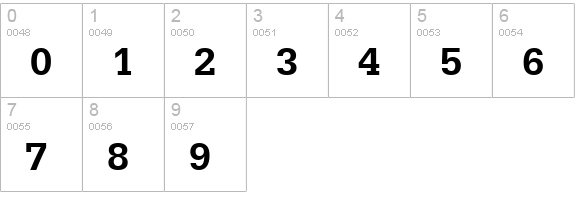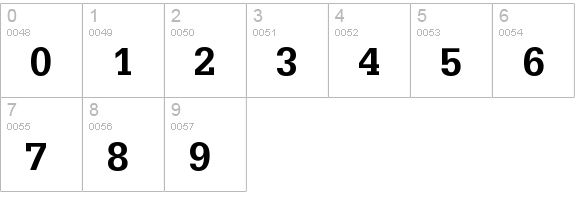
URWEgyptienneTMed Font Details
URWEgyptienneTMed is a stunning font that effortlessly combines classic elegance with a modern twist. This typeface exudes a sense of timeless sophistication, making it the perfect choice for projects that require a touch of refined beauty. With its clean lines and balanced proportions, URWEgyptienneTMed captures attention and adds a touch of professionalism to any design. Whether you're creating a logo, designing a website, or crafting a stylish invitation, this font will elevate your work to new heights. Not only does URWEgyptienneTMed offer exceptional aesthetic appeal, but it also provides incredible versatility. Its wide range of weights and styles allows you to experiment and find the perfect fit for each project. From bold and eye-catching headings to subtle and elegant body text, this font has it all. But perhaps the most impressive aspect of URWEgyptienneTMed is that it is free. Yes, you read that right. This exceptional font is freely available to download at FontsMarket.com. Now you can enjoy this premium quality font without breaking the bank. So why wait? Take advantage of this incredible opportunity and download URWEgyptienneTMed today. Discover the beauty and versatility it offers, and let your creativity soar to new heights. Whether you're a professional designer or a passionate hobbyist, this font is sure to become an invaluable addition to your toolkit.